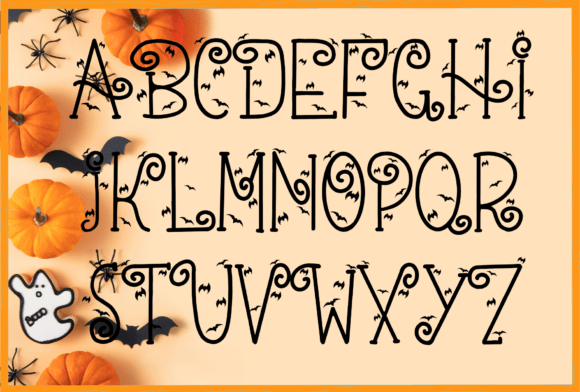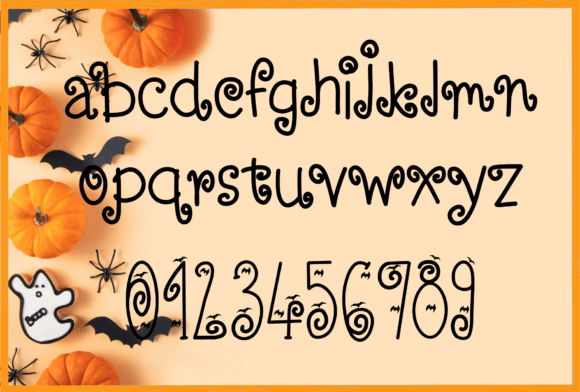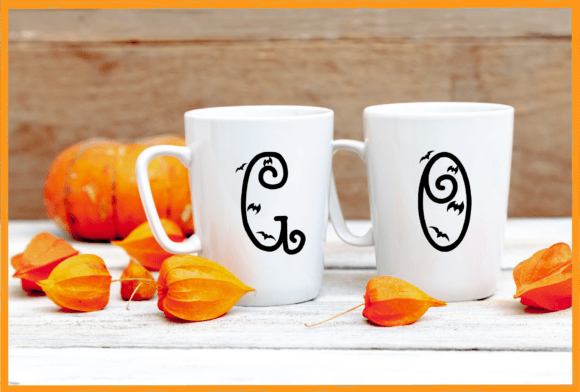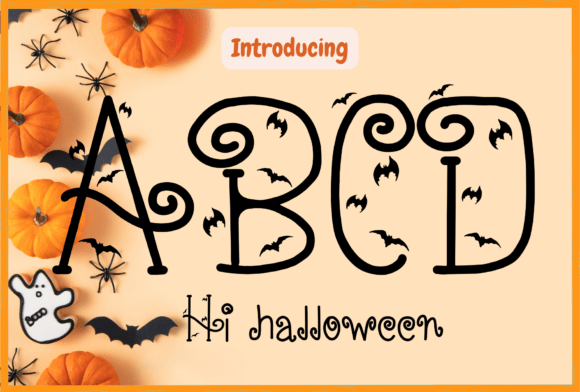
Introduction to Hi Halloween Font
Hi Halloween is a quirky and whimsical display font packed with spooky charm.
With its curly letterforms and flying bat decorations, this font is perfect for Halloween-themed projects like party invitations, posters, crafts, and more Whether you’re designing for kids or creating festive decorations, Hi Halloween adds a touch of fun fright to your typography.